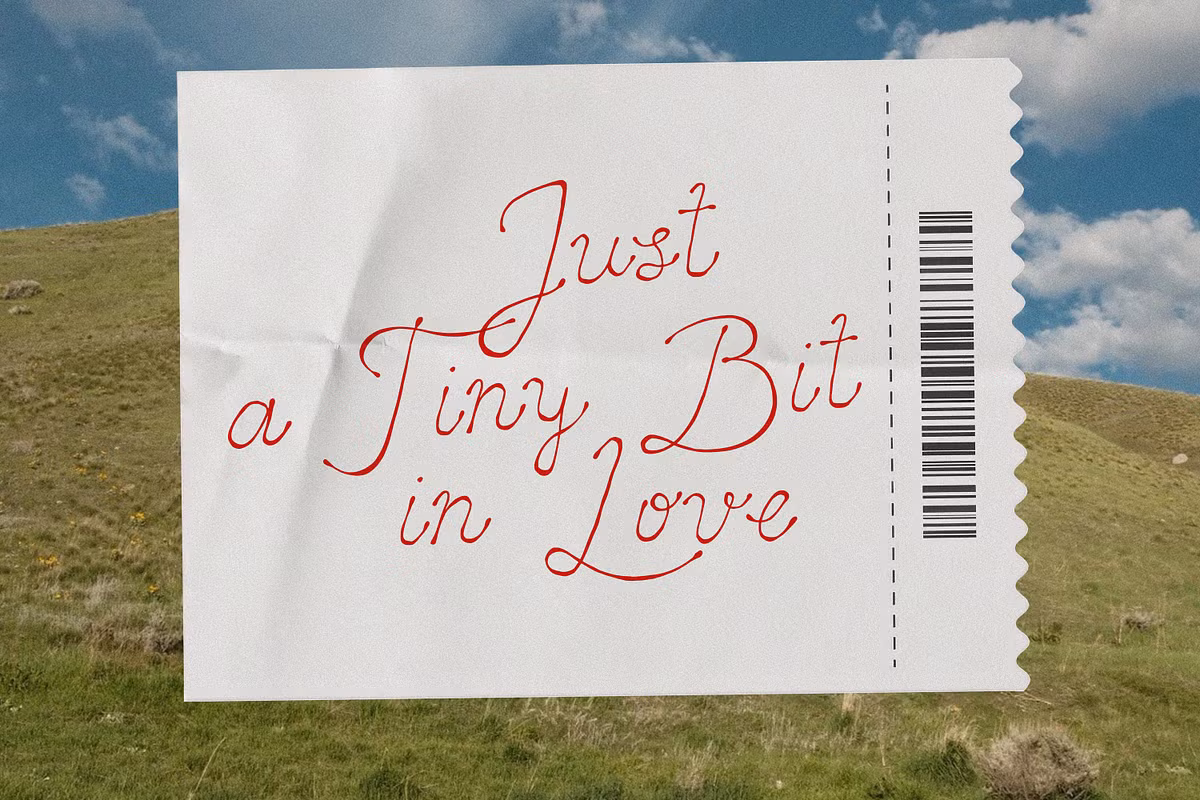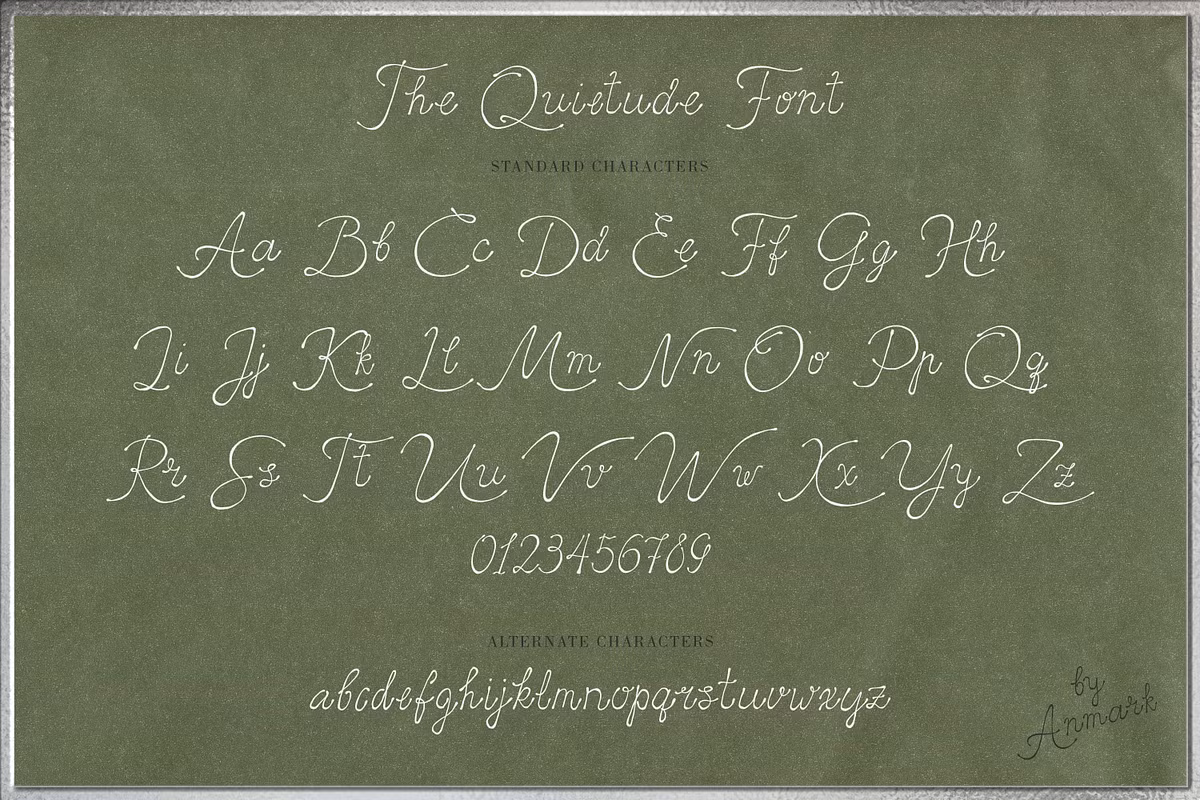
The Quietude Poetic Romantic Script: Feminine Handwritten Font for Weddings
Introduction to The Quietude Font
The Quietude font is really beautiful and has a romantic feel to it. It’s like the kind of handwriting you’d find in old love letters – soft, flowing, and full of emotion. This font is great for projects where you want to convey a sense of calmness and intimacy. If you’re working on wedding invitations, writing poetry, or just want to add a personal touch to your brand, The Quietude is a great choice. It’s got a vintage vibe that’s hard to resist, and it’s perfect for anyone who wants to add a little romance to their design.
The Quietude is all about evoking feelings of quietness and closeness, making it ideal for designs that need a touch of elegance and sophistication. Whether you’re looking to create something classic and timeless or just want to add a bit of whimsy to your project, this font is sure to impress. With its beautiful, cursive lines and delicate flourishes, The Quietude is a font that will make your designs stand out and leave a lasting impression.
Design Style of The Quietude
The Quietude font has a beautiful, handwritten look that’s really romantic. Its letters are all connected and flow nicely into each other, which gives it a pretty, feminine feel. This makes it a great choice for things like wedding invitations and other love-related stuff. Each letter has tiny details and soft curves that make it feel warm and inviting, which is perfect for expressing sweet thoughts and feelings.
The way it’s designed makes you want to use it for special, personal messages that come from the heart.
The Quietude has a classic look that never goes out of style, which is something that people today really like. It’s a nod to the past, but still feels modern and elegant. The soft edges and special letters make it stand out from more traditional fonts, which can feel stiff and formal.
This font is all about expressing yourself in a way that feels genuine and warm. It’s perfect for when you want to add a personal touch to your design. The Quietude is a great choice because it’s unique, but not too flashy – it’s just a beautiful, timeless font that makes you feel all the feels.
Character Sets and Variations
The Quietude has a really cool feature – it comes with a full set of lowercase alternates. This means you can make small changes to your text, giving it a more natural, handwritten feel that fits perfectly with the overall organic vibe of your design. You can swap out each lowercase letter for a different version, which lets you add a personal touch to your message and make it truly one-of-a-kind.
By using these alternates, you can create a unique rhythm in your text that draws the reader in and makes your design feel more authentic. This feature is especially useful when you want to add some subtlety and variation to your text, and make it stand out from more traditional, uniform fonts.
With The Quietude’s lowercase alternates, you have the freedom to experiment and find the perfect combination that reflects your message and style.
The uppercase letters have a neat and classy look that goes well with the smooth lowercase letters. This mix makes sure your text is easy to read and still has a touch of romance that The Quietude is famous for. You can use these letters in many different ways, so they’re good for both fancy and casual designs.
Use Cases for The Quietude Font
The Quietude font is really versatile and works well in many different situations, especially when it comes to things like love and personal relationships. Here are some of the main ways you can use The Quietude font effectively:
- Wedding Invitations & Stationery: The Quietude’s romantic script is perfect for crafting elegant wedding invitations, save-the-dates, and thank-you cards. Its soft and feminine nature sets the tone for a beautiful wedding celebration.
- The Quietude is a beautiful way to express your feelings. It helps you write vows or love letters that are truly special. The style is intimate and emotional, making your words feel deeper and more meaningful.
- The Quietude font is really good for making magazines and other editorial designs look great. It’s easy on the eyes and helps make quotes and special articles stand out, which makes people want to read them.
- The Quietude is a great way to make your writing projects special. It’s perfect for people who love poetry, journaling, or working on book projects.
- Romantic Branding & Boutique Logos: Brands that wish to convey a sense of romance or femininity can benefit from The Quietude in their logos and branding materials, creating a cohesive and appealing visual identity.
- Social Media Graphics & Pinterest Visuals: Utilize The Quietude to create stunning social media graphics that stand out.
Pairing Suggestions for The Quietude
When it comes to pairing fonts, The Quietude offers a unique opportunity to create harmonious combinations that enhance your overall design. Here are some pairing suggestions that work well with The Quietude:
The Quietude brings a sense of elegance and creativity to your work, and it can inspire you to create something amazing. Whether you’re working on a personal project or a professional one, this font can help you achieve your goals. With its beautiful and romantic feel, The Quietude is sure to make your designs stand out. So, don’t be afraid to get creative and try out new things – The Quietude is the perfect tool to help you bring your ideas to life.